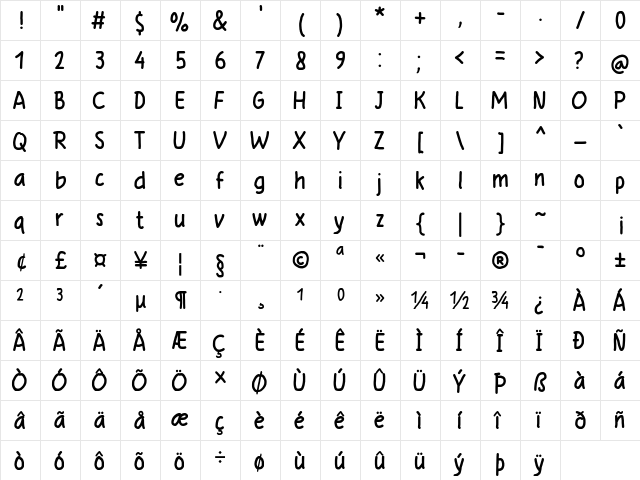
Anysome Regular
| Designer | Situjuh Nazara |
Design Context for Anysome Typeface
Anysome takes a measured approach to typography — its balanced proportions and neutral character make it a reliable workhorse for both digital and print work.